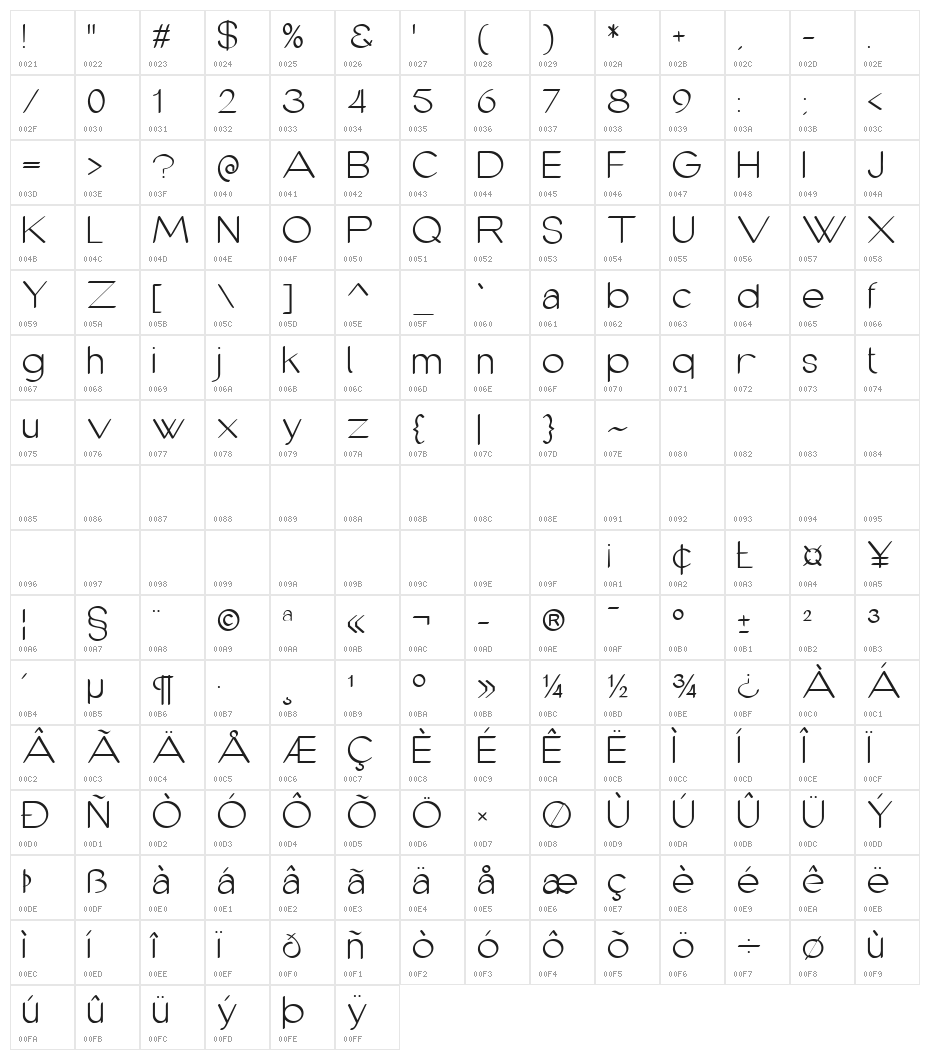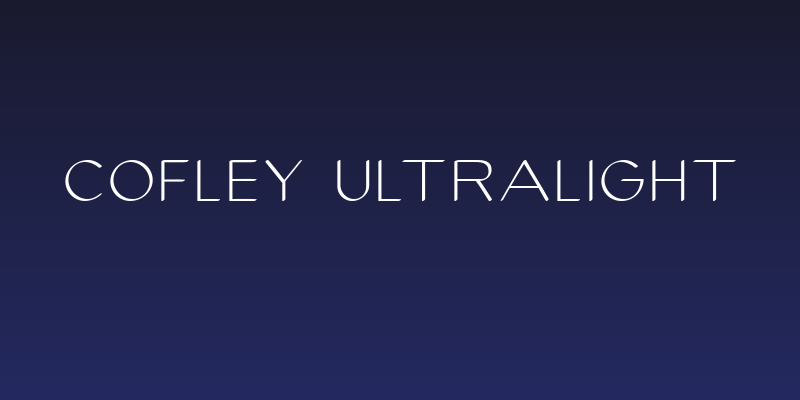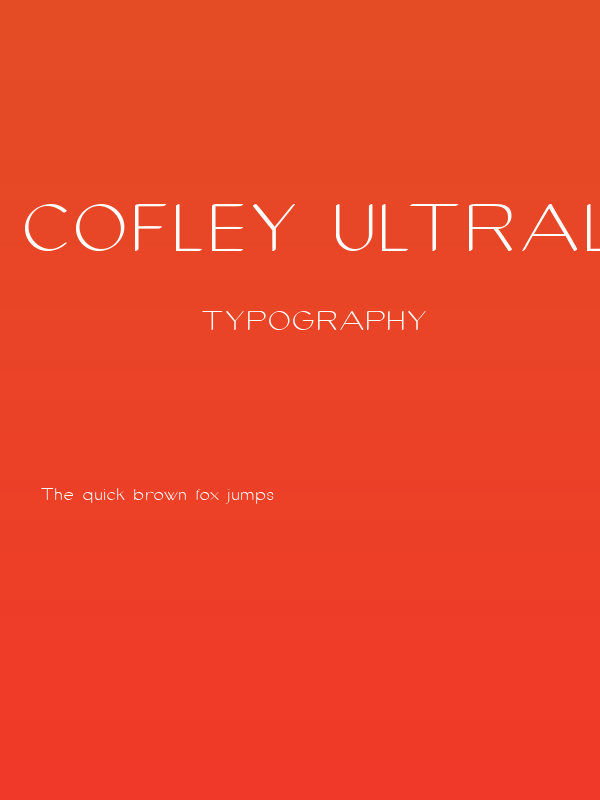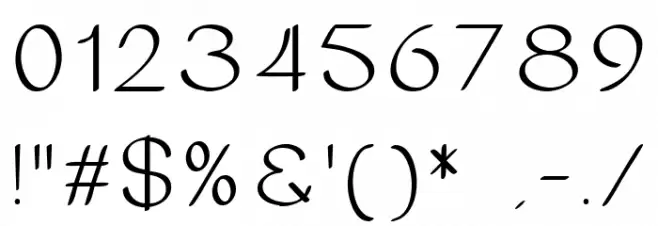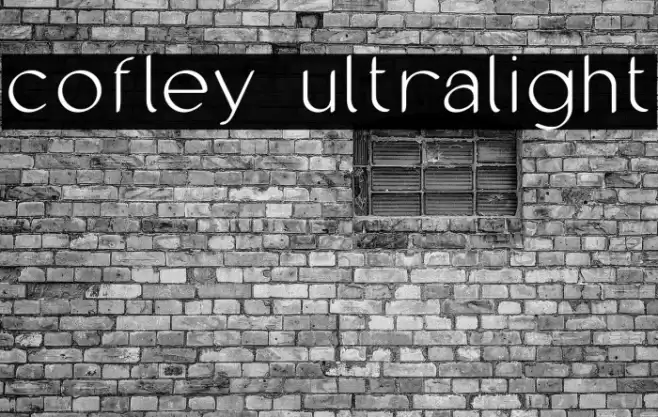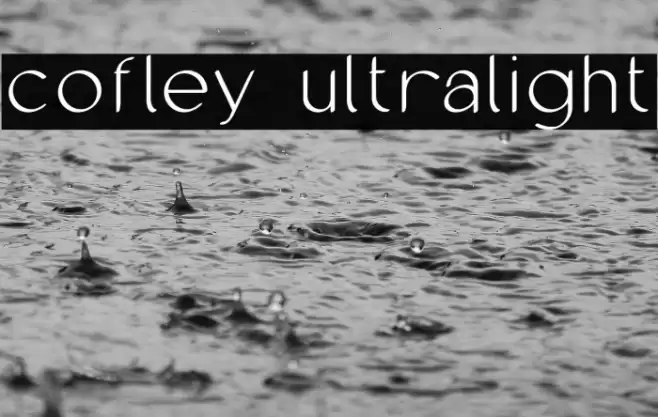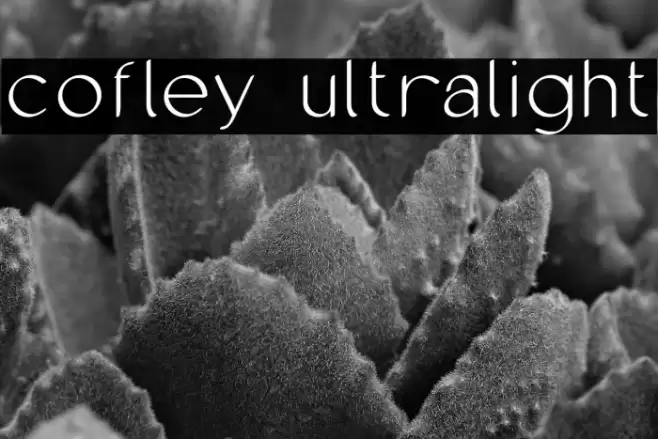
cofley ultralight Font
This font features a sleek and modern design with ultra-light strokes, giving it an airy and minimalist appearance. The characters are well-proportioned, with a consistent line weight that enhances readability while maintaining a stylish look. The uppercase letters are slightly taller than the lowercase, adding a touch of elegance. The numerals are clear and distinct, making them suitable for various applications. Special characters are included, each designed with the same attention to detail and balance. This font is perfect for projects that require a clean and contemporary aesthetic.
| Proposed Projects | Ideal for branding, editorial design, websites, and modern advertising campaigns. |